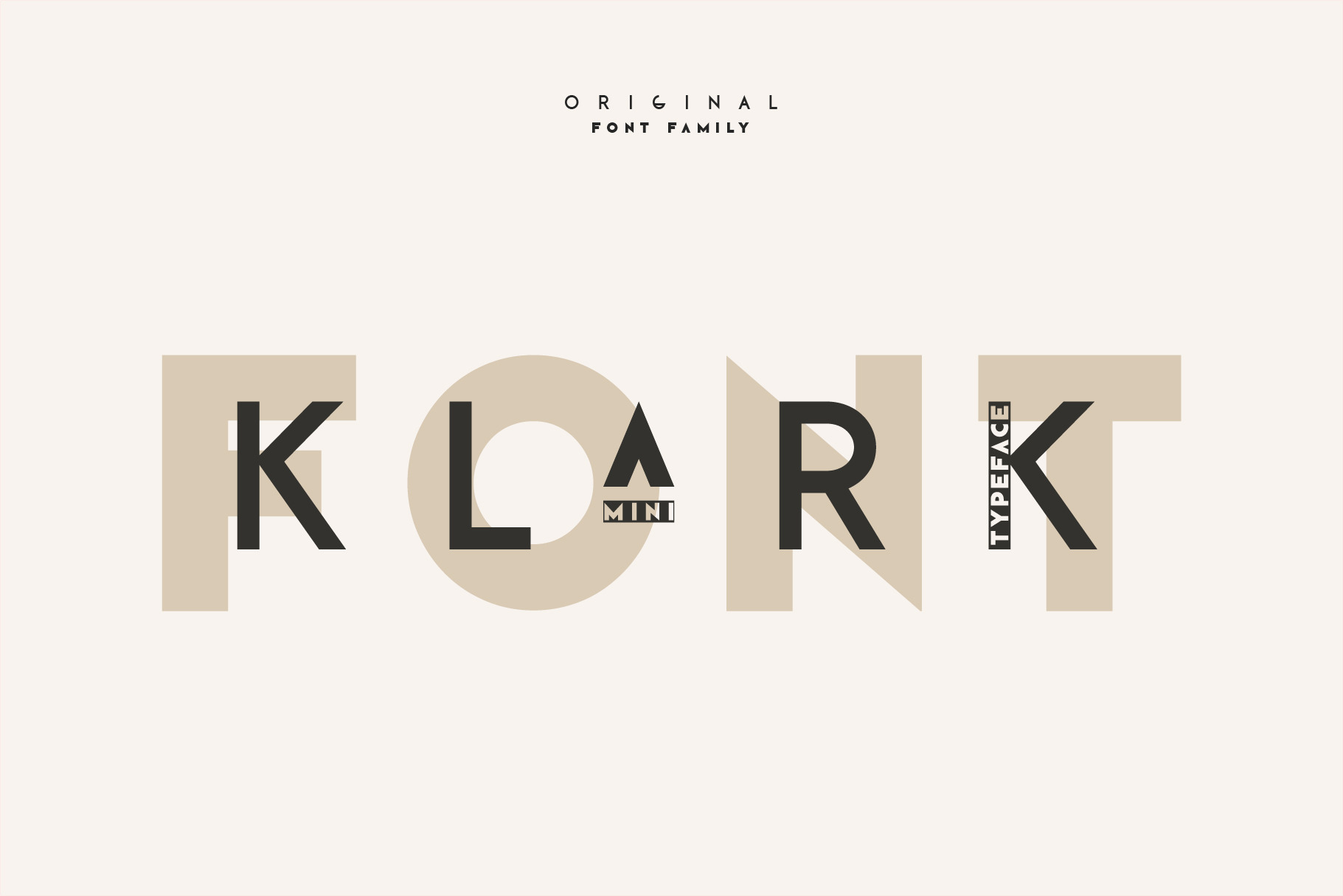
Klark. Sans serif font family.
Klark - geometric original font is created according to current trends and is suitable for minimalistic modern designs. Need to decorate a photo for a social network or create a trend branding for product? Klark font - will perfectly accomplish these tasks. And with its different font styles you can make a lot of harmonious options for the inscription logo design, which will look professional and unique. Just give free rein to your imagination!
- UPPERCASE and lowercase letters
- Numbers & basic Punctuation
- Sans-Serif Typeface
- Regular, Light, Medium and Ultra font style (look preview pictures)
- Ideal geometric forms